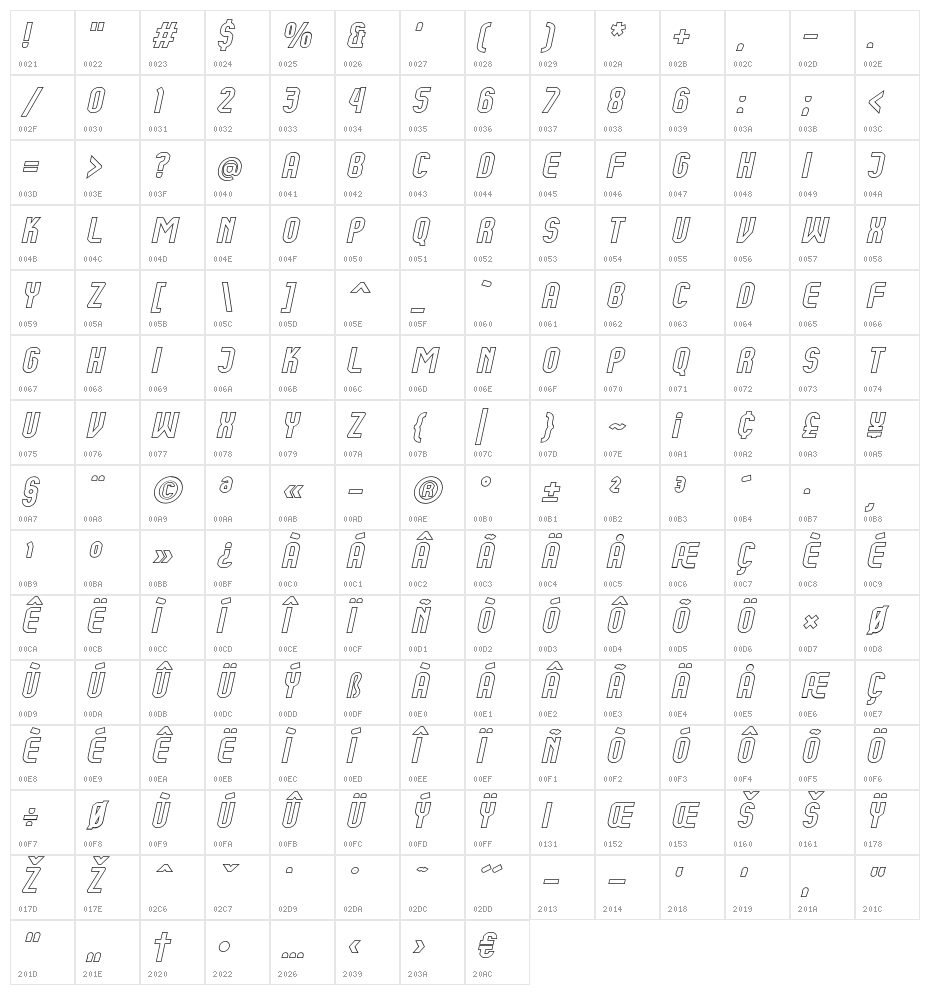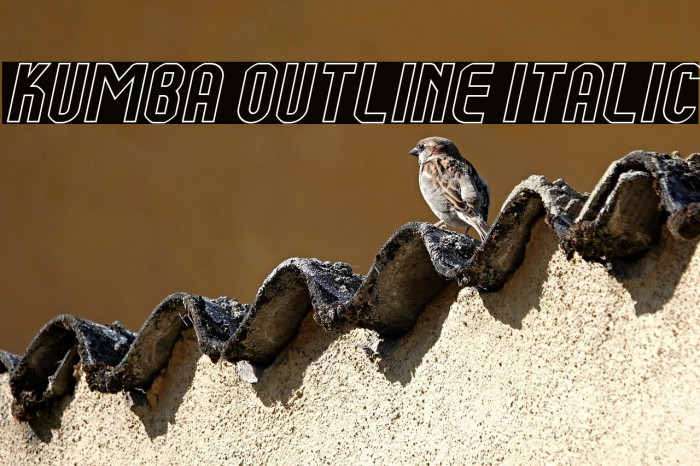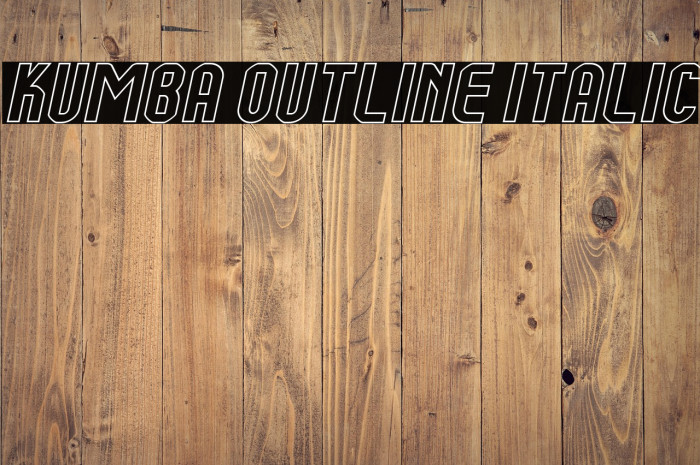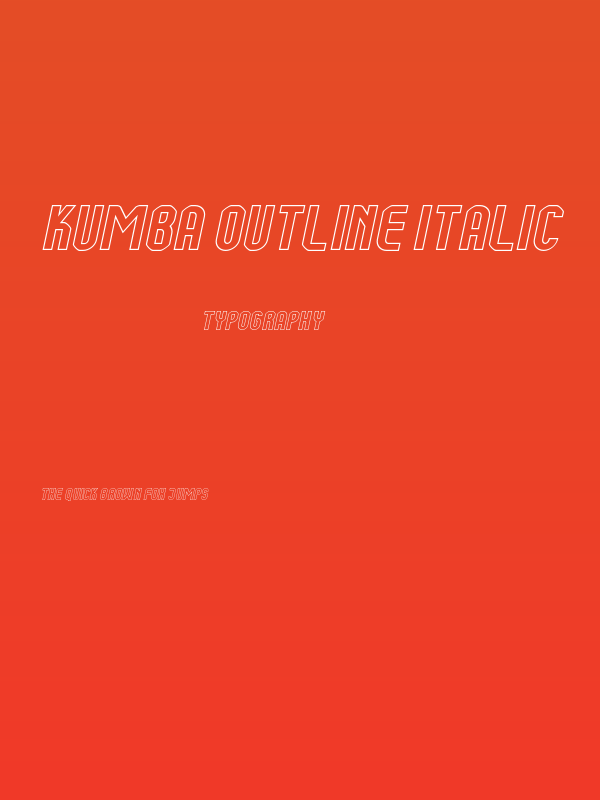
Kumba Outline Italic Font
Kumba Outline Italic Description
This font features a bold, outlined style with a distinct italic slant, giving it a dynamic and modern appearance. The characters are uppercase and lowercase alphabets, along with numbers and a set of special characters. The outline design creates a sense of depth and dimension, making it stand out in any design. The strokes are consistent in thickness, providing a uniform look across all characters. The italic angle adds a sense of motion and energy, making it suitable for projects that require a contemporary and eye-catching typeface.
| Proposed Projects | Ideal for posters, headlines, branding, and any design needing a striking and modern typeface. |